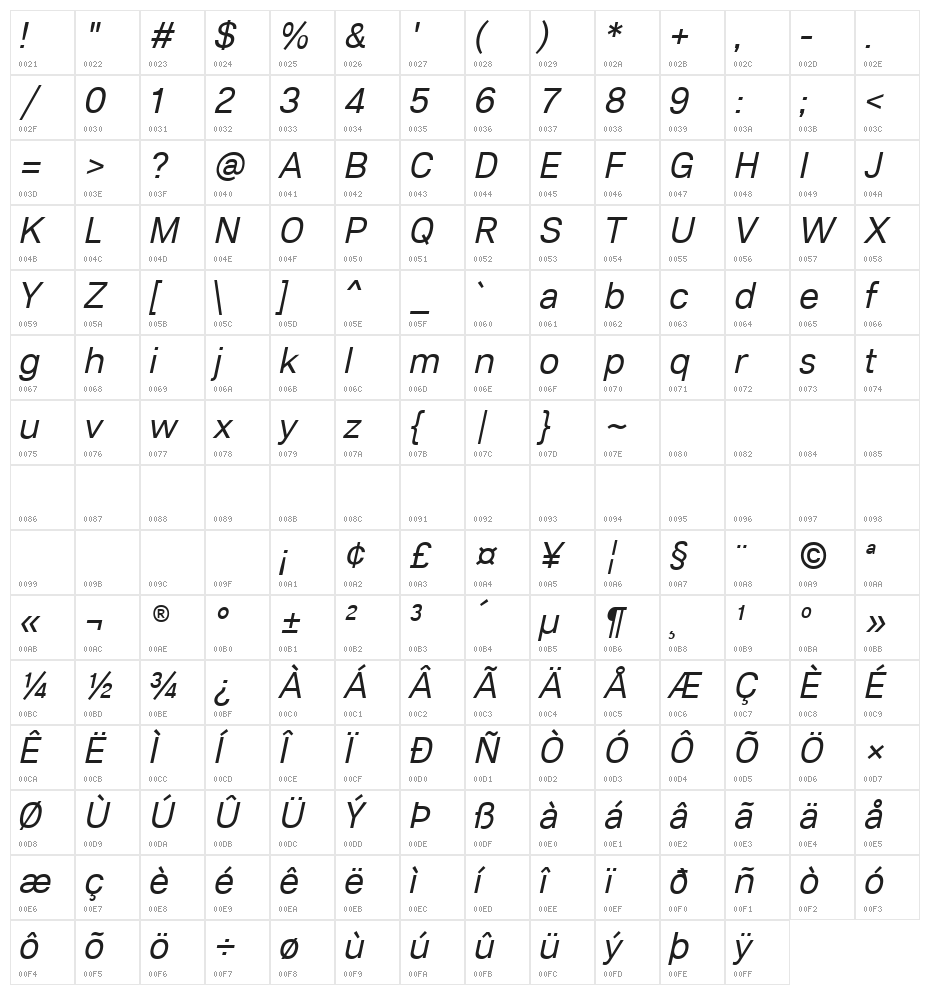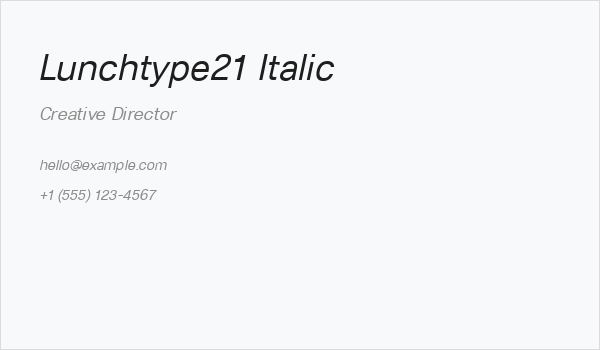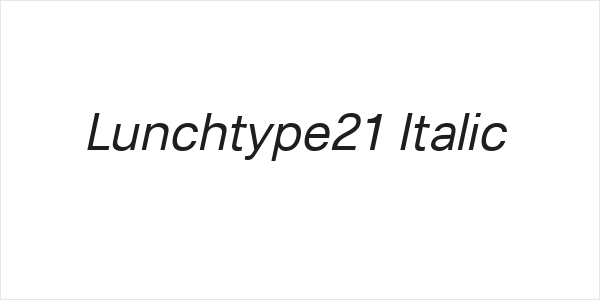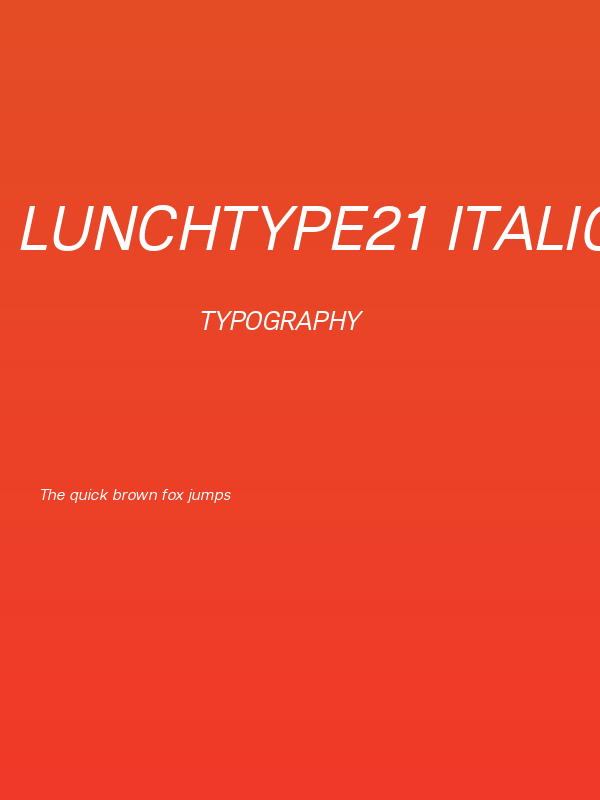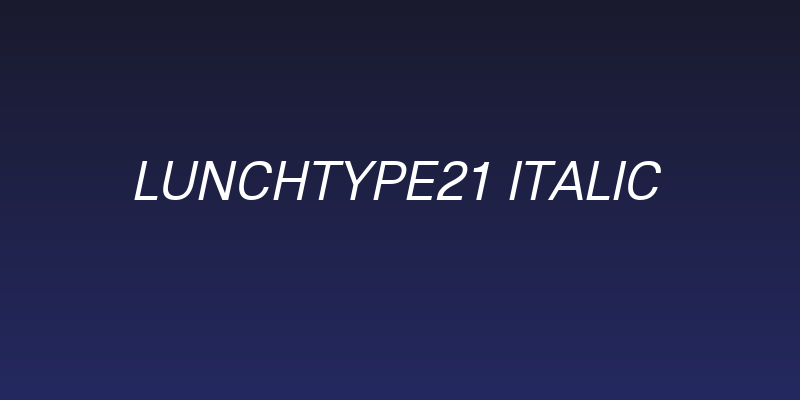
Lunchtype21 Italic Font
Lunchtype21 Italic Description
This font features a sleek, italicized style that conveys a sense of modernity and elegance. The characters are slightly slanted, adding a dynamic and forward-moving appearance. The strokes are clean and consistent, with a medium contrast that ensures readability while maintaining a stylish look. The font's design is versatile, making it suitable for a variety of applications. The spacing between characters is normal, providing a balanced and harmonious text flow. Its overall aesthetic is contemporary, making it ideal for projects that require a touch of sophistication.